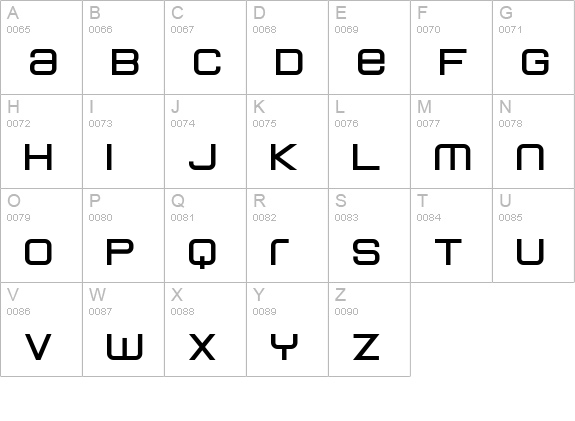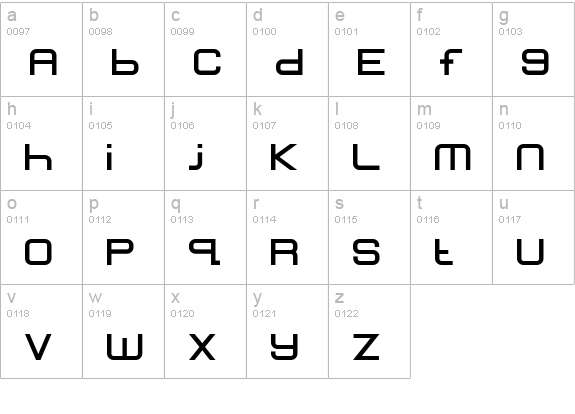
Flotsam Smart Font Details
Introducing Flotsam Smart font, a stylish and modern typeface designed to elevate your design projects to new heights. This versatile font features a sleek and sophisticated look, making it perfect for a wide range of design applications. With its clean lines and contemporary appeal, Flotsam Smart font is sure to make a statement in any project. What sets Flotsam Smart font apart is not only its aesthetic appeal but also its user-friendly nature. This font is highly readable and easy to work with, making it a great choice for both print and digital designs. Whether you're creating a logo, branding materials, website design, or any other project, Flotsam Smart font has got you covered. And the best part? Flotsam Smart font is completely free to download at FontsMarket.com. Yes, you read that right - this high-quality font is available at no cost, allowing you to enhance your designs without breaking the bank. So why wait? Head over to FontsMarket.com now and get your hands on Flotsam Smart font to take your projects to the next level.